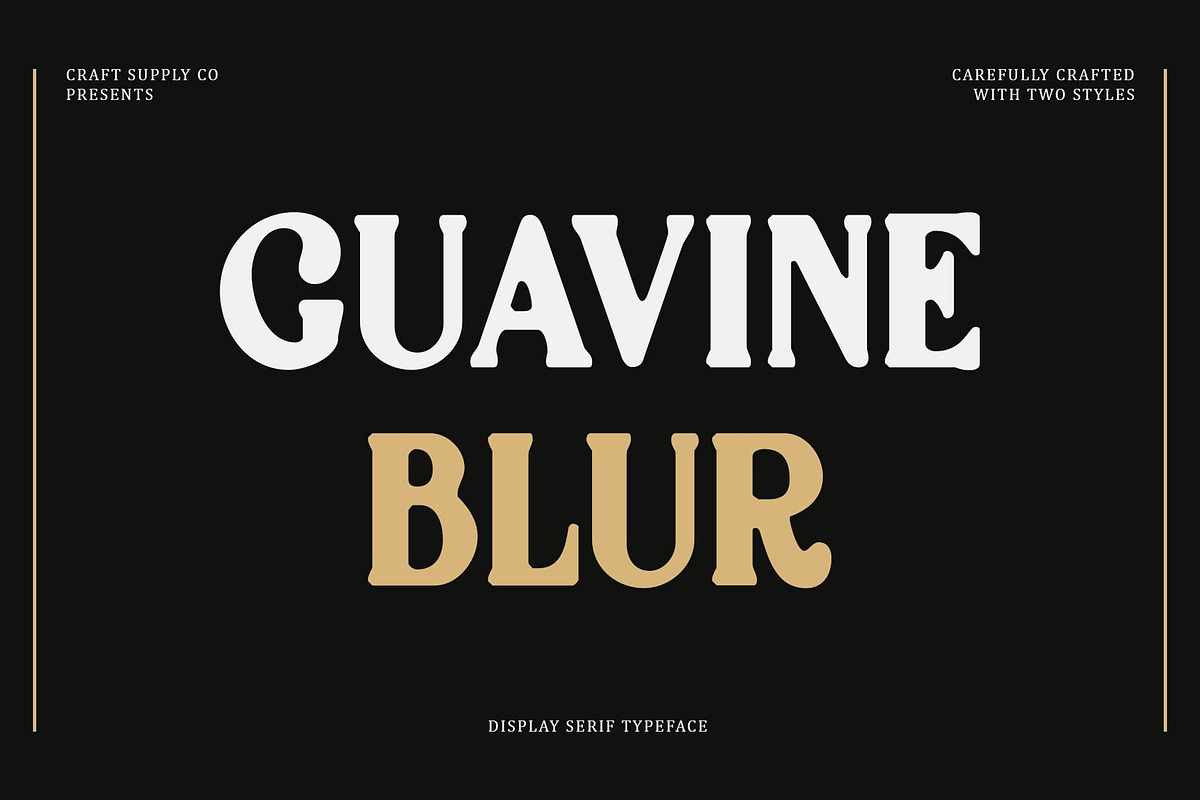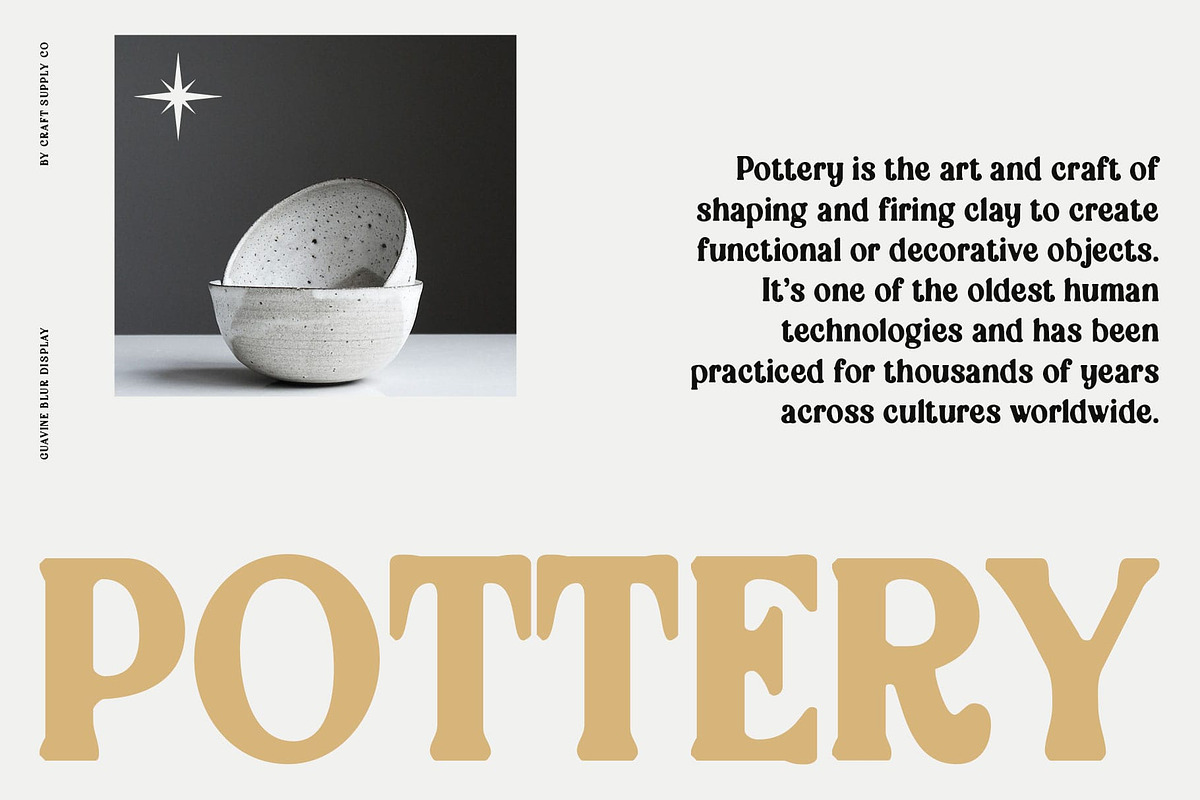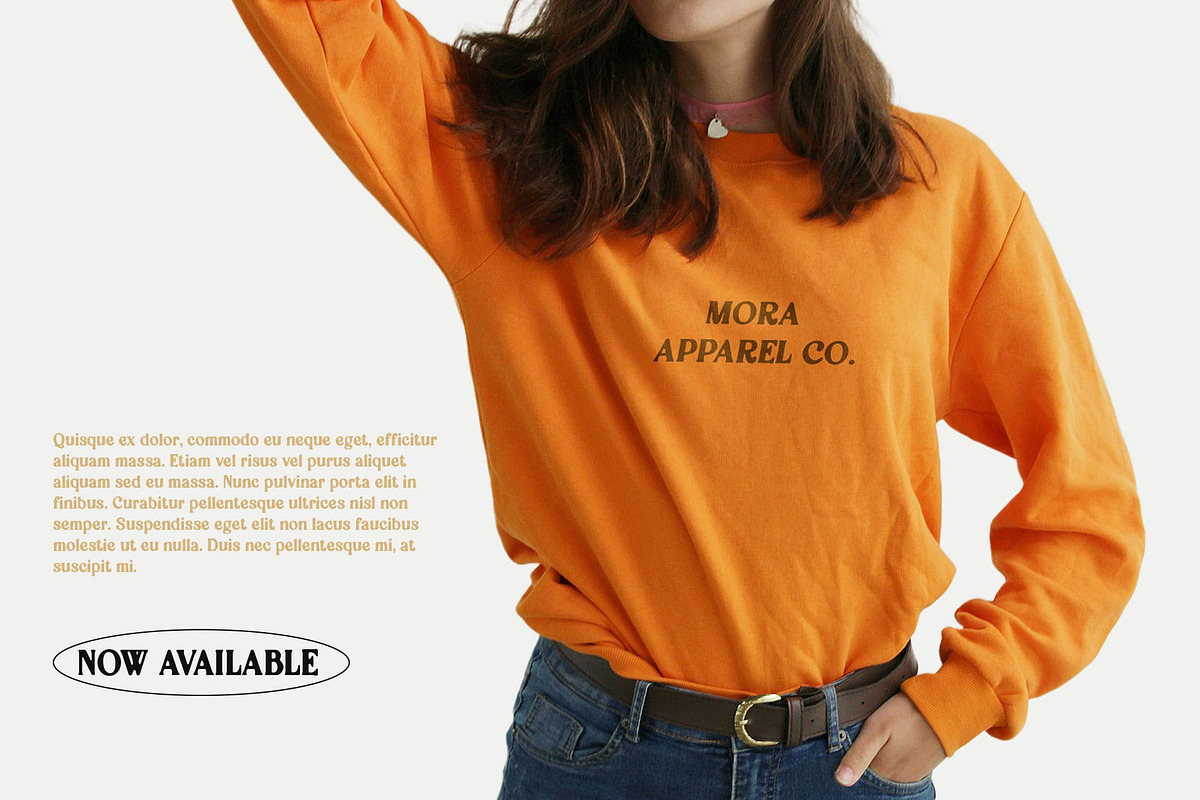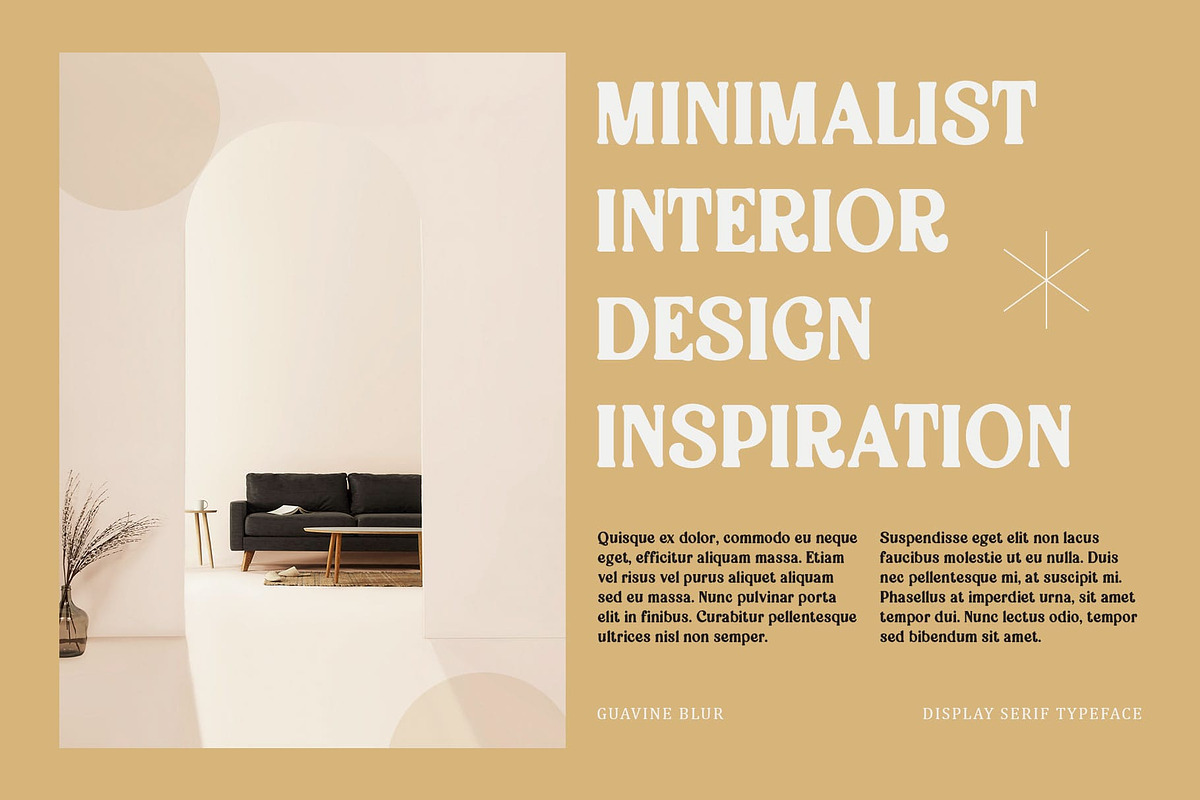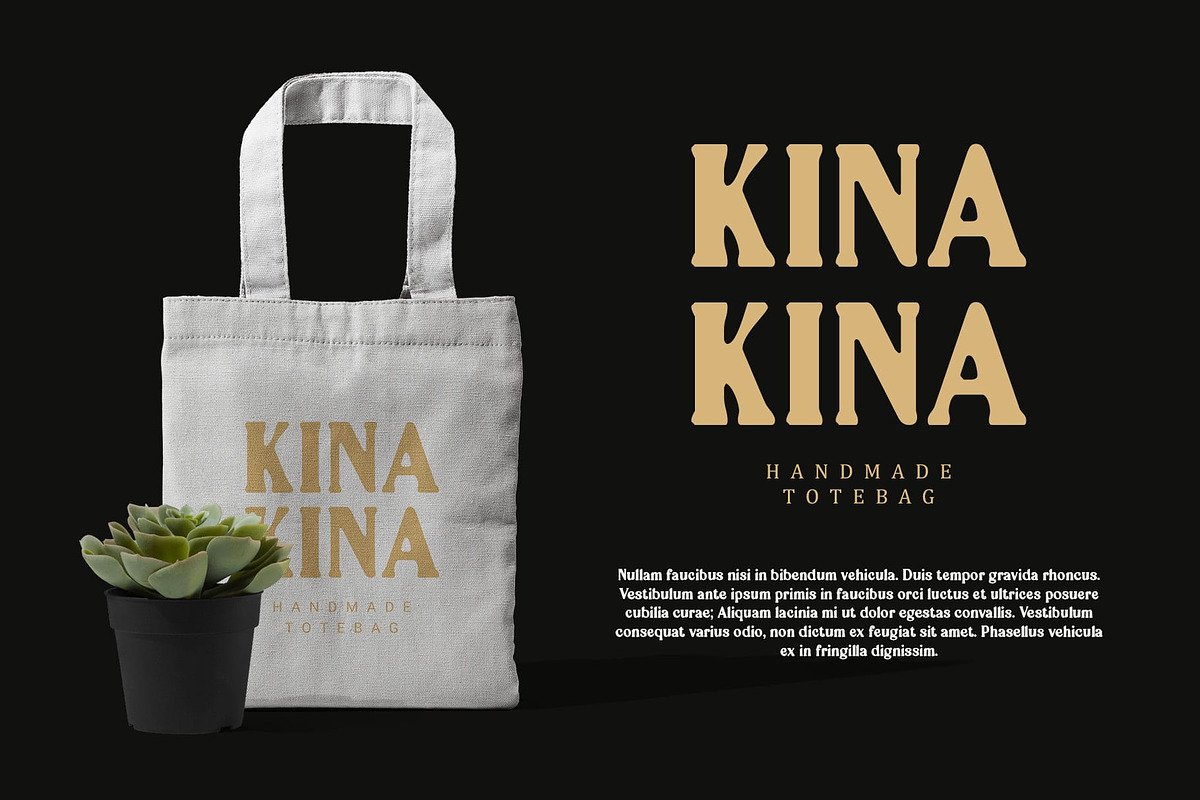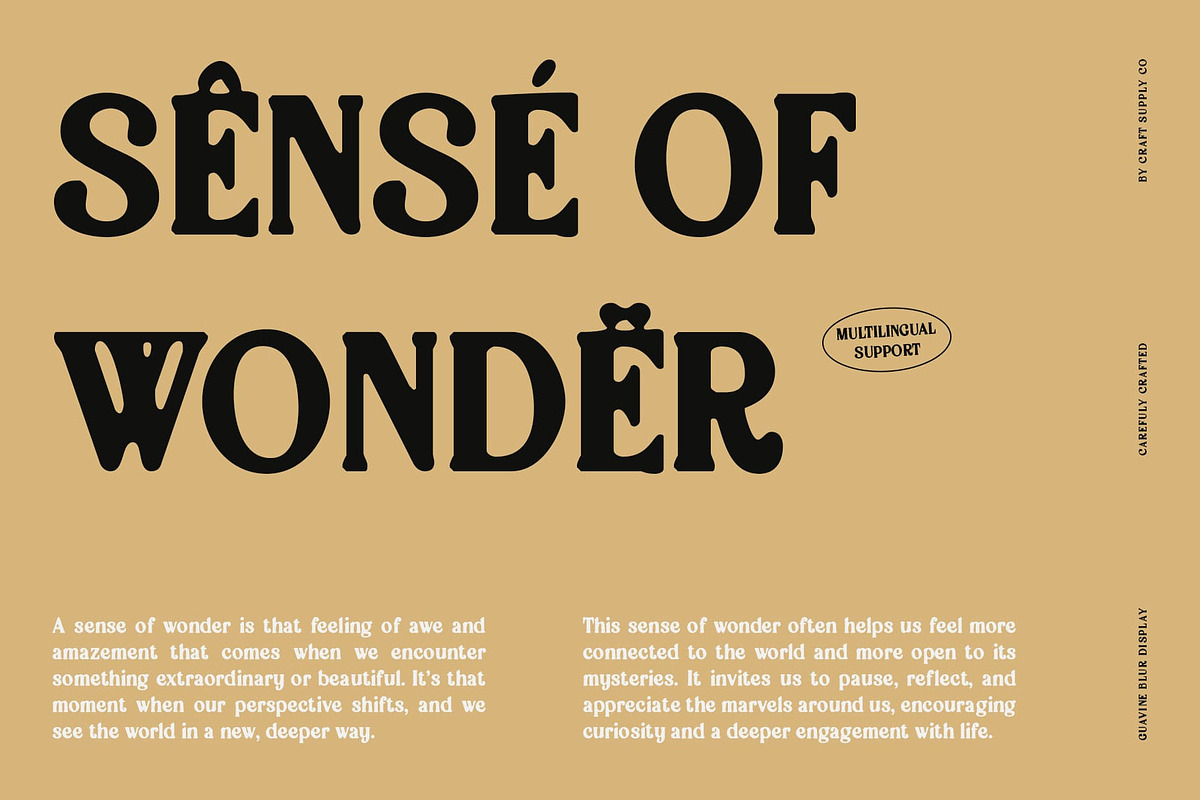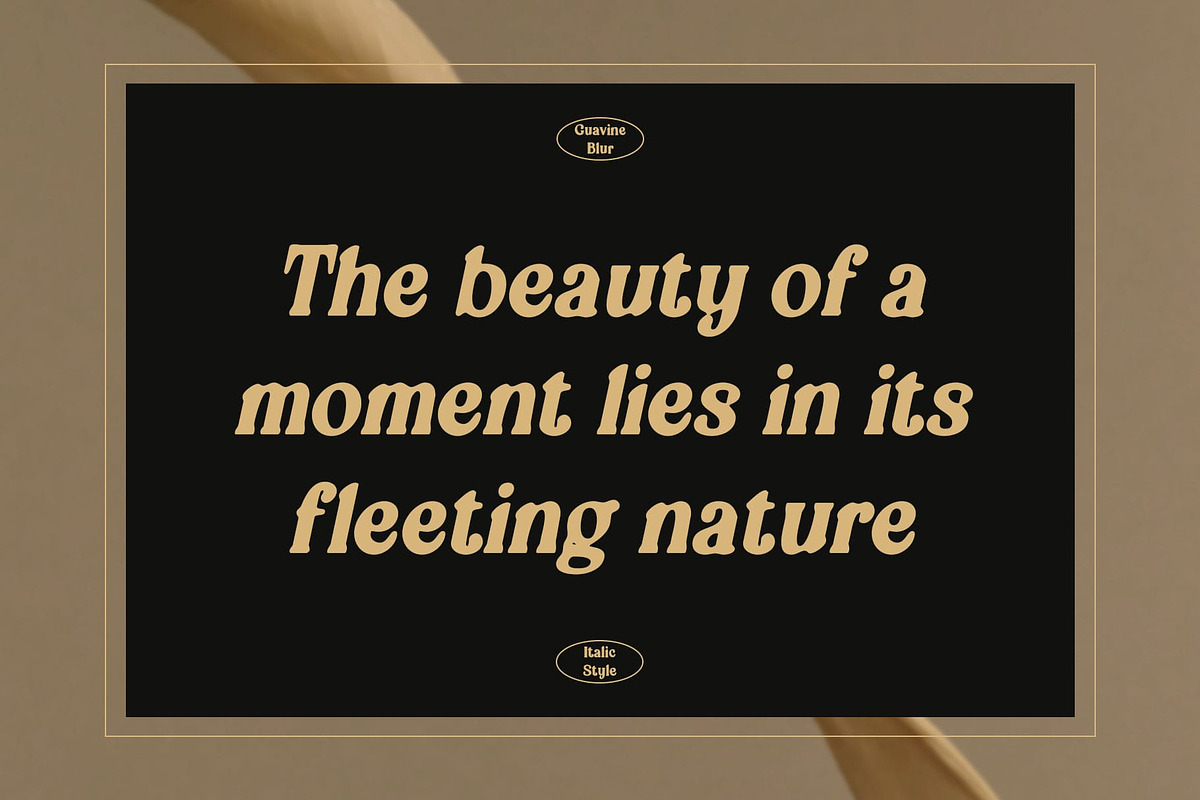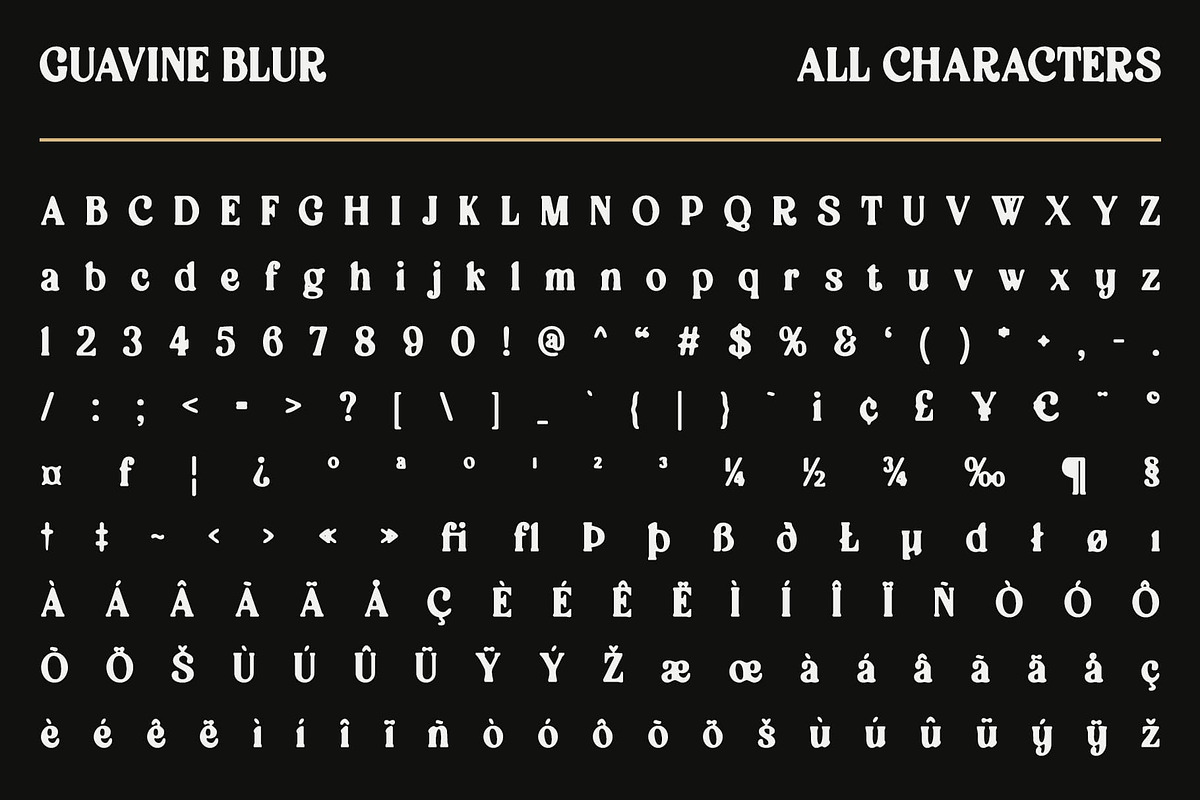
Guavine Blur
Guavine Blur Font – Classic Serif with a Modern Twist
Timeless Serif Elegance with a Dynamic Blur Effect Guavine Blur is a classic serif font that harmoniously blends traditional elegance with a contemporary flair. The serif details provide a formal, sophisticated look that exudes timeless class, while the blur effect introduces a modern, dynamic touch, offering a smooth and slightly hazy appearance.
Elegant and Futuristic Fusion The classic serifs of Guavine Blur lend a sense of tradition and refinement, perfect for projects that require a touch of formality. Meanwhile, the blur effect adds a layer of dimension and fluidity, creating an artistic and futuristic aesthetic that sets this font apart from traditional serif designs.
Blending Nostalgia with Innovation This font’s unique combination of classic letter forms and a modern blur effect creates a striking balance between nostalgia and innovation. The result is a design that feels both historically rich and forward-thinking, making it ideal for applications that need to convey a blend of vintage style and contemporary sensibilities.
Perfect for Branding and Posters Guavine Blur is especially suited for branding, posters, and other design projects that seek to merge classic elegance with a modern edge.